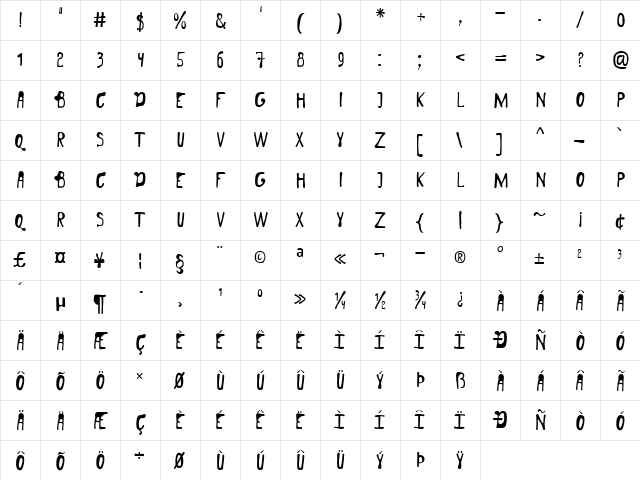
London One Regular
| Foundry | Olga Kozlova, Jovanny Lemonad |
| Designer | Olga Kozlova |
Design Context for London One Typeface
London One is a composed and adaptable typeface that performs quietly and consistently across a wide range of design contexts.